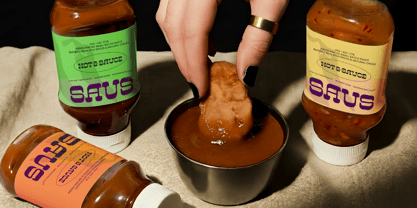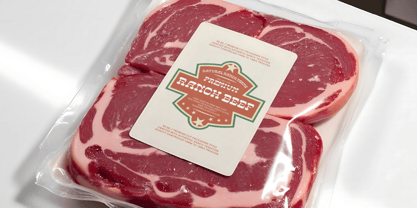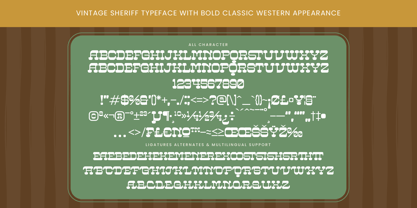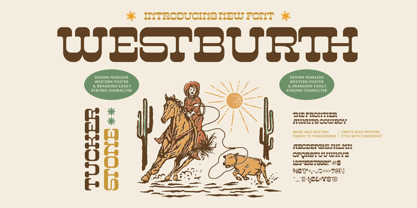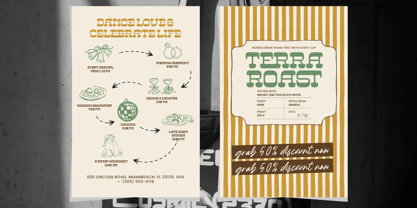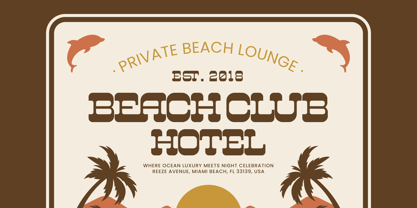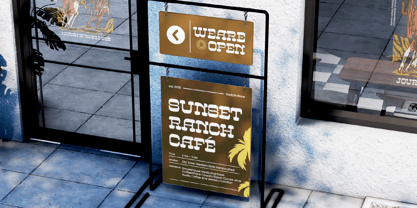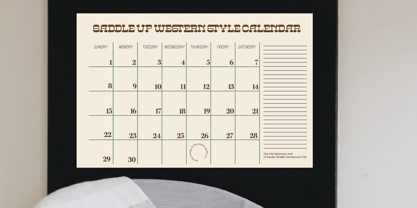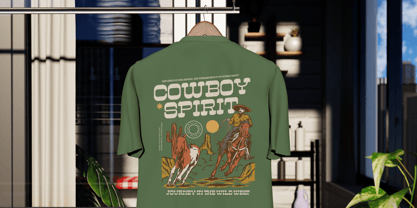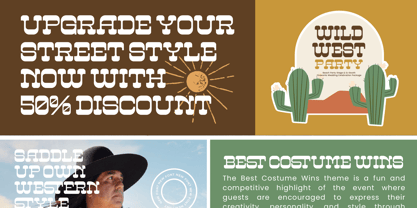
Westburth
Die Schriftfamilie Westburth wurde von Heru Utama Putra entworfen und von Timelesstype Studio veröffentlicht. Westburth enthält 2 Stile und Familienpaketoptionen. Mehr über diese Familie
Westburth – Western Display Font. This heavy slab serif masterfully balances vintage charm with contemporary precision, offering a high-impact aesthetic that demands attention. Its chunky letterforms evoke the timeless essence of wild-west typography while remaining perfectly suited for modern design trends. For those aiming for a nostalgic retro vibe, this font delivers an unmatched visual weight that defines your creative vision.
Expanding your creative reach is effortless with this comprehensive typeface. With its extensive multilingual support, Westburth – Western Display Font adapts seamlessly across global markets, making it incredibly versatile for international projects and diverse branding needs. This global adaptability ensures your message remains impactful, regardless of the language. By providing a diverse glyph set, it empowers designers to maintain a consistent brand identity while catering to a wide audience on a worldwide scale.